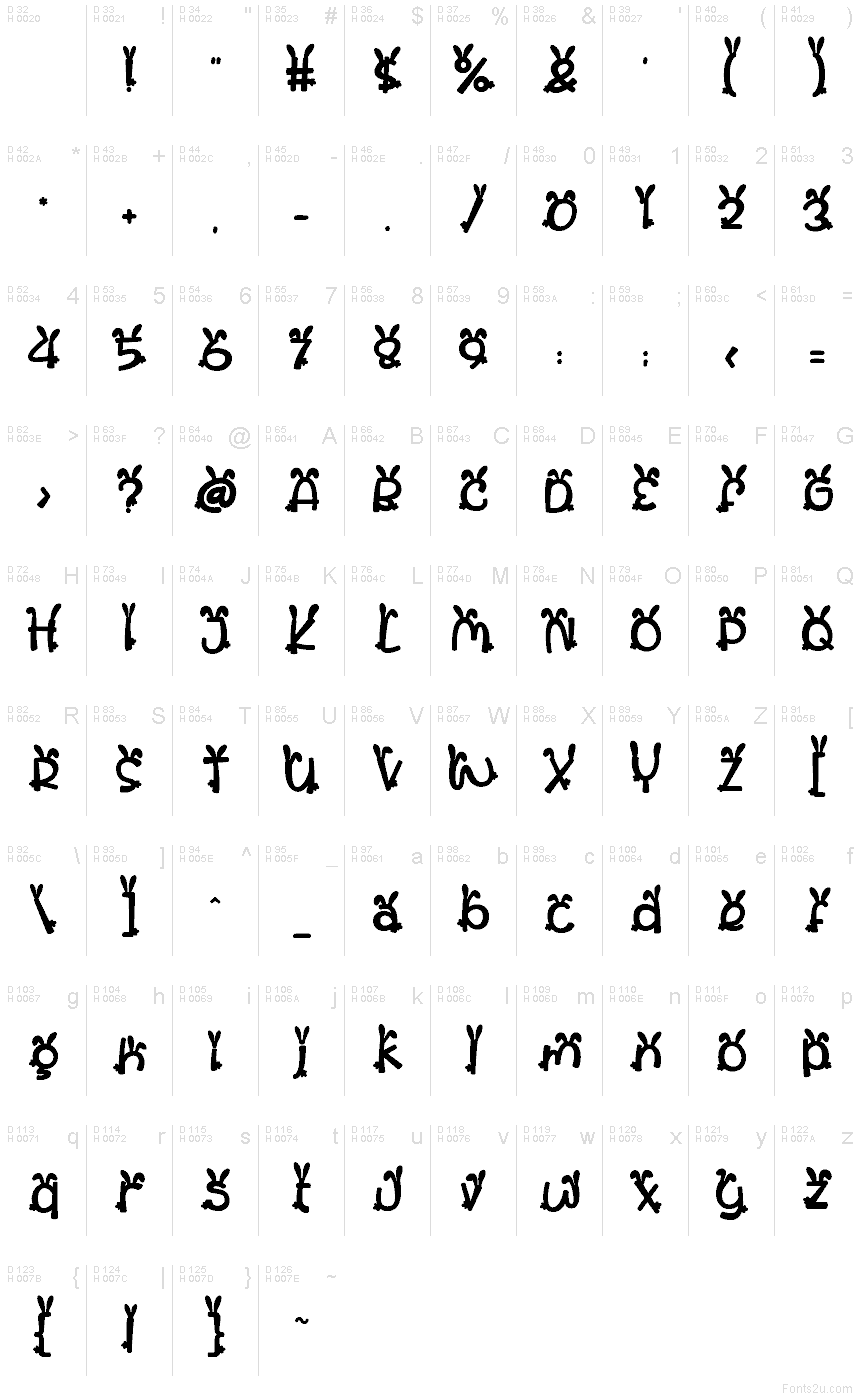
Pastel Palooza Bunny
Pastel Palooza Bunny font by PutraCetol Studio features expressive flourishes within a whimsical design that creates a lively and artistic personality with each letter. This free holiday font merges letters decorated in imaginative shapes for an overall decorative appearance that stands out to all those willing to read.
Decorate this Easter with headlines, ribbons, stickers, greeting cards, magazines, posters, packages, brochures, advertisements etc. Let your promotional material appear more inviting with logotype typography or treat your audience or loved ones to lively typography on board games and event invitations.